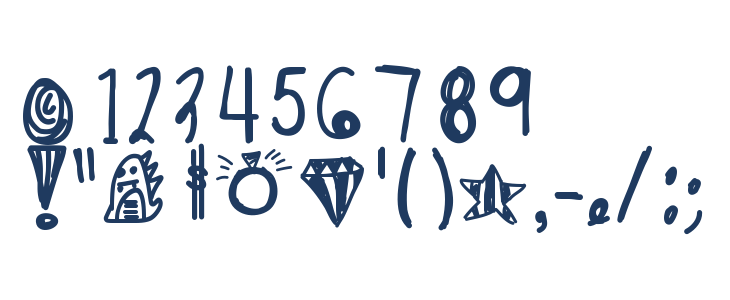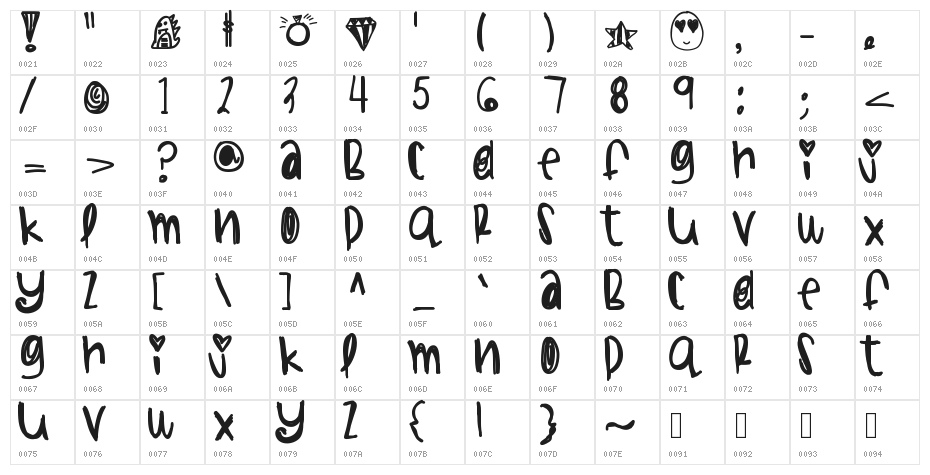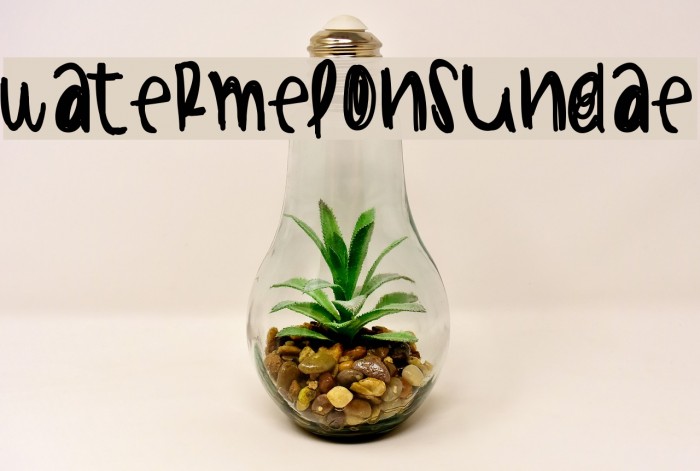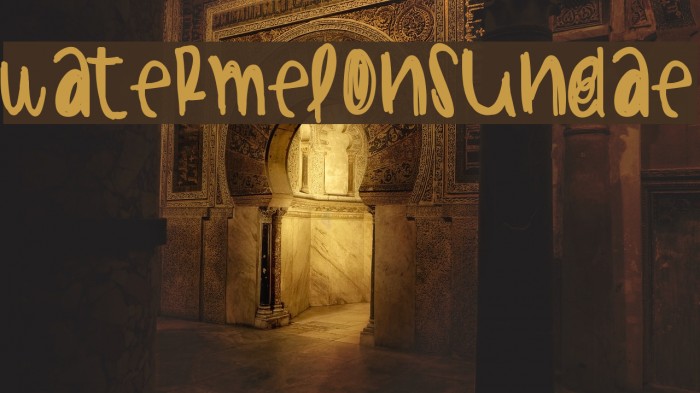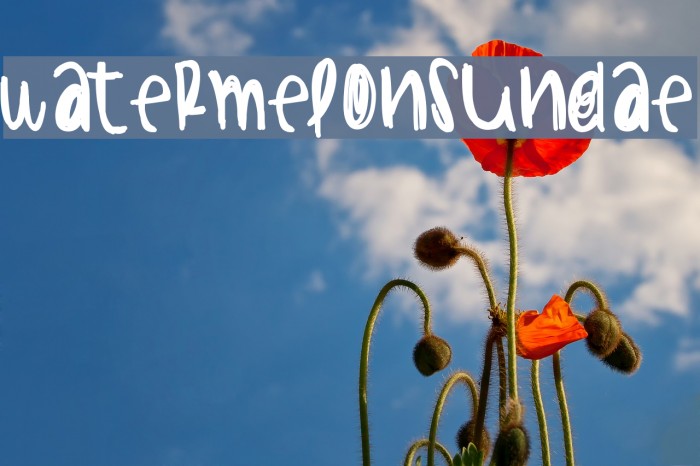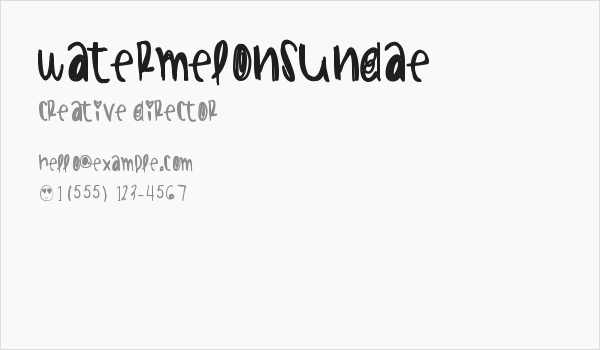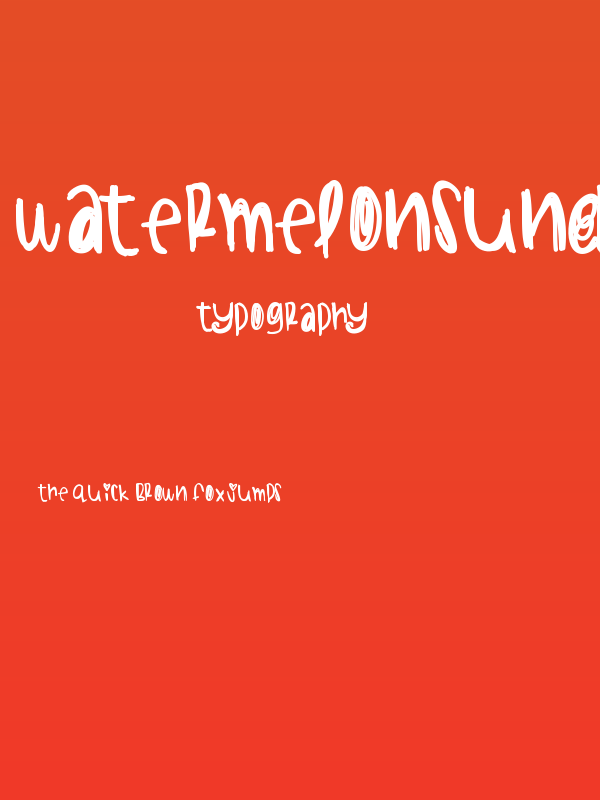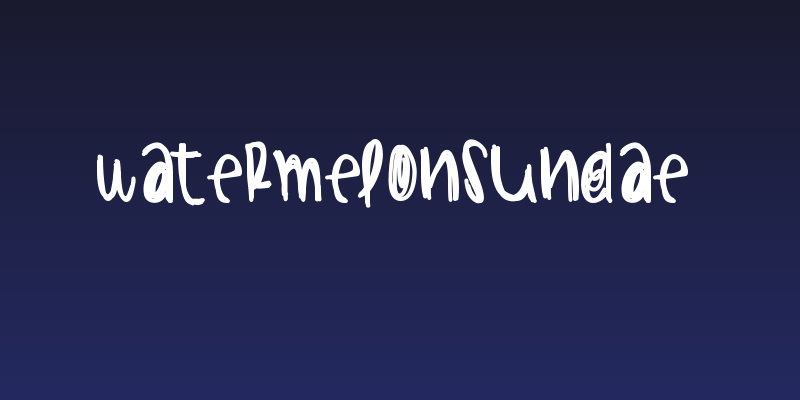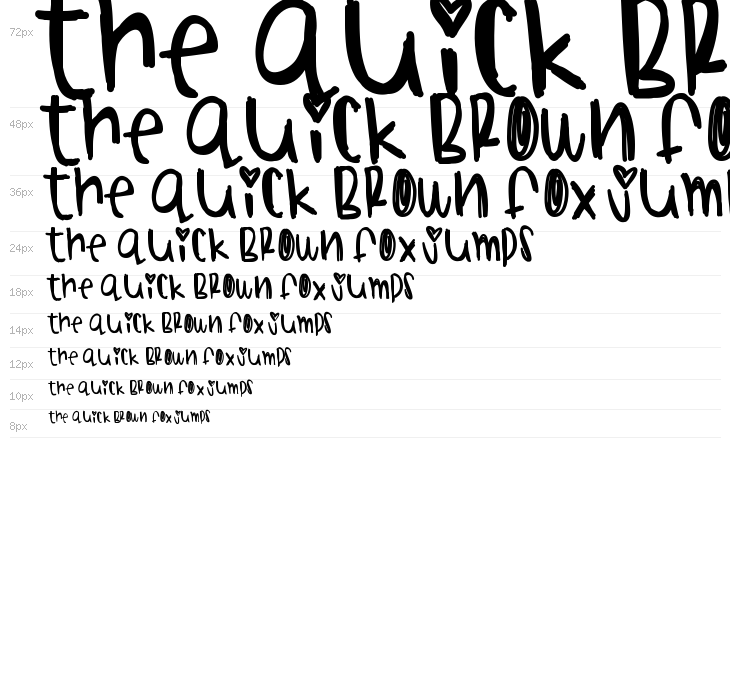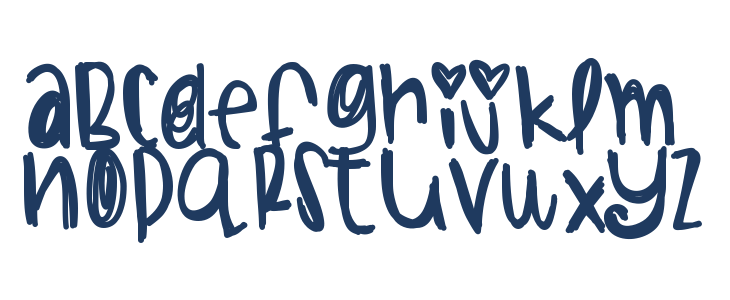
WatermelonSundae Font
WatermelonSundae Description
This playful and whimsical font features a handwritten style with unique character designs. The letters are bold and rounded, with a casual, friendly appearance. Some characters incorporate heart shapes, adding a touch of charm and creativity. The numbers are equally playful, maintaining the same bold and rounded style. Special characters include fun and decorative symbols, enhancing the font's overall playful theme. This font is perfect for projects that require a lighthearted and informal touch.
| Proposed Projects | Ideal for children's books, greeting cards, playful branding, and creative social media graphics. |